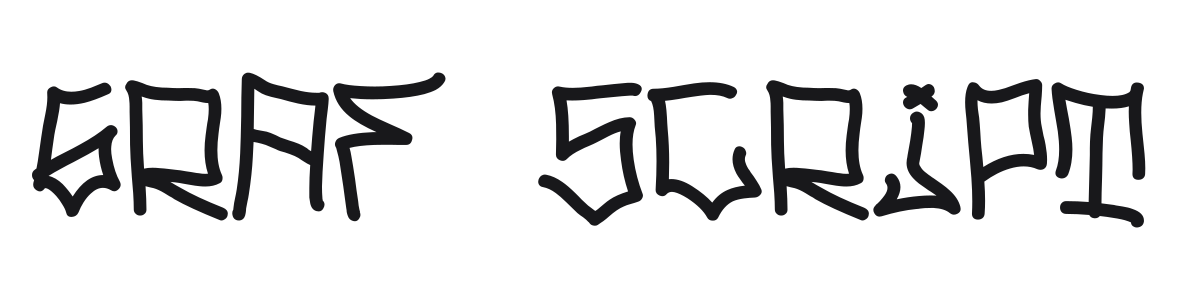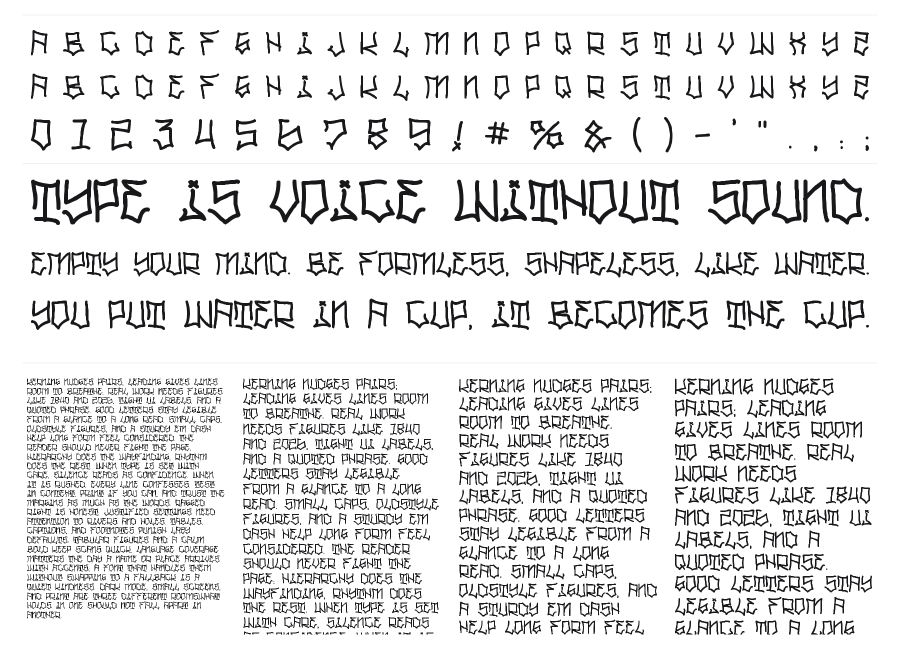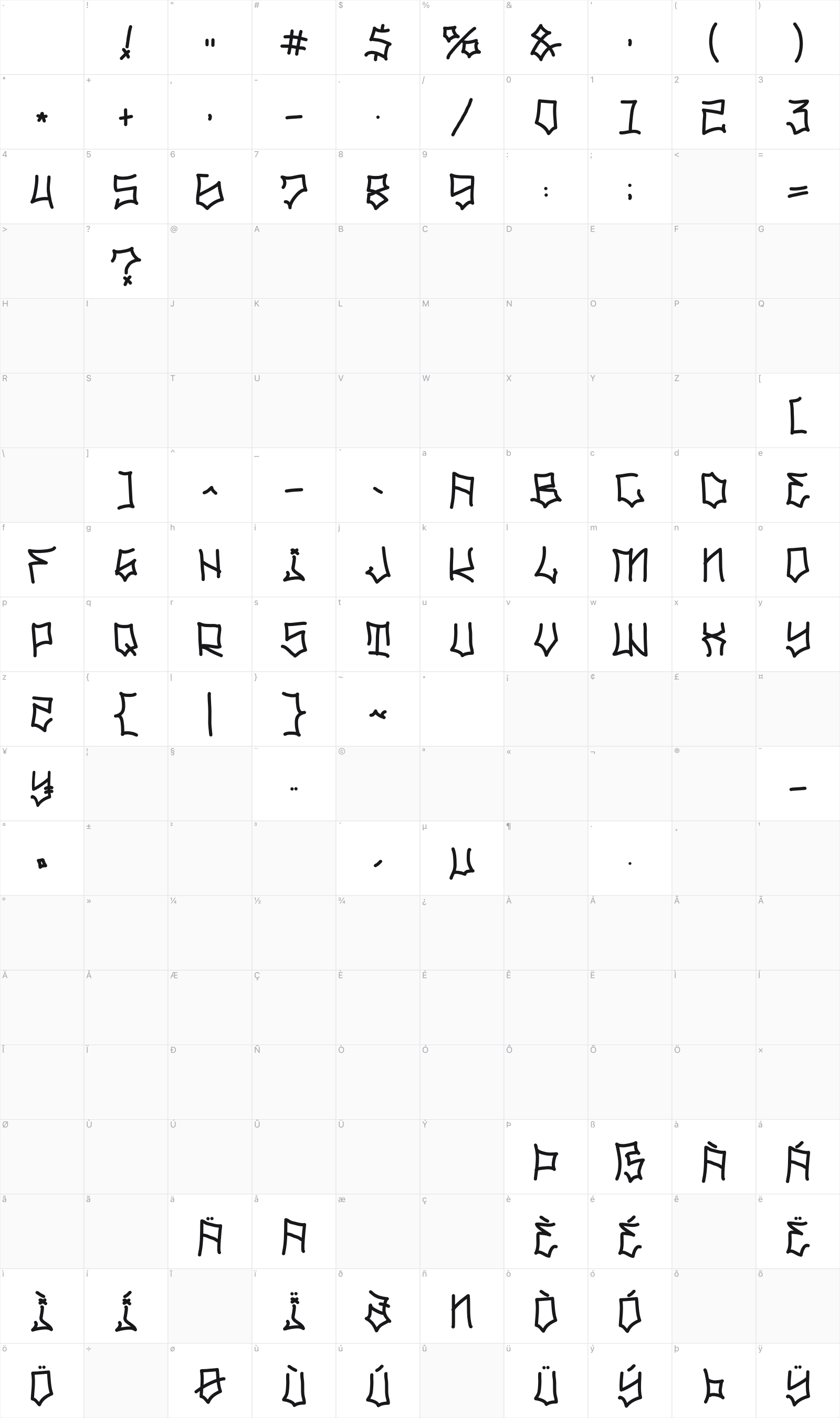
Graf Script
Graf Script is a West Coast graffiti hand-style font with angular, heavy characters drawn from spray-paint lettering tradition. The blocky construction and notched terminals give it an authentically street-sourced feel rather than a polished interpretation. Strong for music packaging, streetwear branding, and any headline that needs raw urban energy.